With so much of compelling fonts available in the web, it’s sometimes very difficult to make a decision on which font to choose for your design. Despite of other hip fonts, capital fonts are also very competent to use for making your graphic design exceptional with free fonts. That is why today in this blog, I am here to drag every designer’s attention with these 15 gorgeous free all caps fonts. Let’s have a look!
1. Baron
Baron, a free uppercase display typeface is inspired by the classic sans serif font family. This typeface is perfect to use in posters and headlines.
2. Blackout
Blackout is a nice uppercase-only sans serif face with all counters filled in.
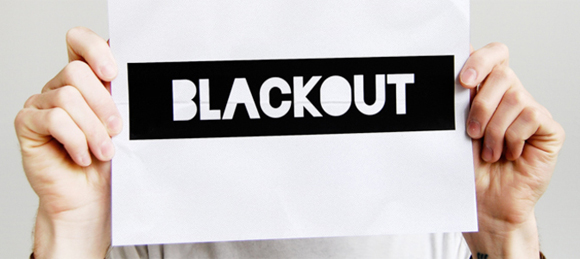
3. Simplifica
Simplifica is a slightly condensed sans-serif typeface featured by a uniform and thin line width.
4. Uni Sans
Uni Sans is a free all caps font which is available here.
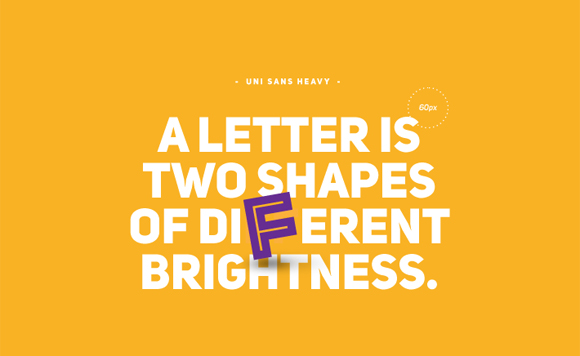
5. Borg
Borg is a geometric typeface with a curved incision which is inspired from Sweden furniture.
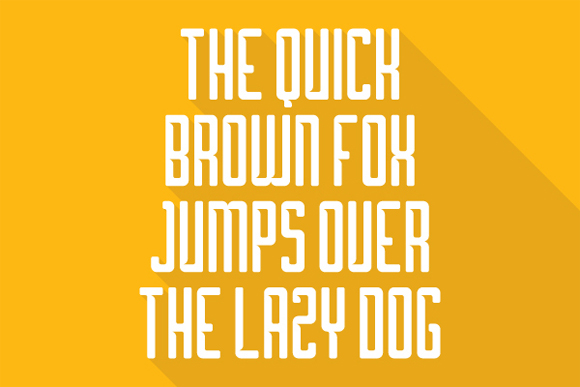
6. Moderne Sans
Moderne Sans is a clean sans-serif typeface popularised by pet portrait company Paint My Pooch. The font was created by Marius Kempken which is free to download.
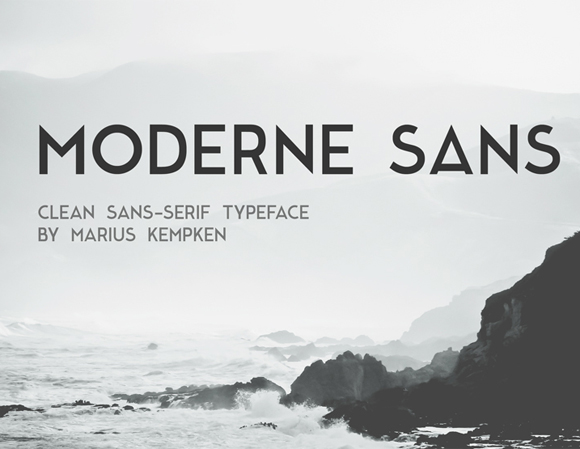
7. Ostrich Sans Inline
Ostrich Sans Inline is another all caps free to download font.
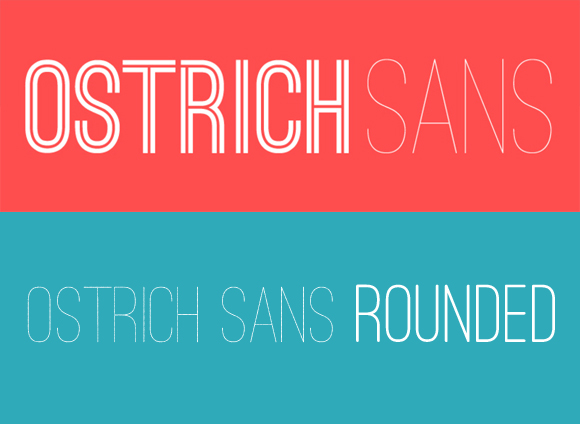
8. Reckoner
Inspired from the popular industrial sans serif typefaces such as Bebas Neue, Alegre Sans & Dharma Gothic, designer Alex designed this reckoner font which is a free all caps font for commercial and personal use.
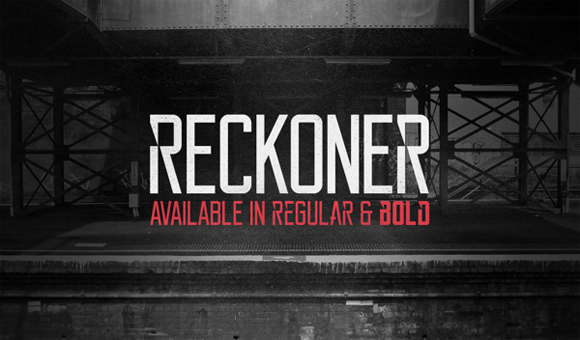
9. Furore
This all caps font is available here which is free to download.
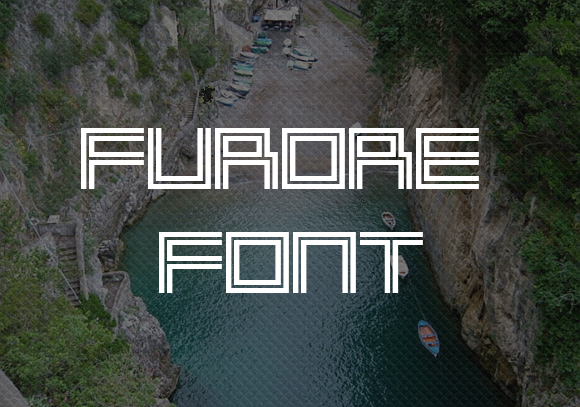
10. Primus
Primus is geometric typeface with rounded edges, carefully designed and kerned to achieve a high visual quality that would make it a perfect typeface for any kind of use.
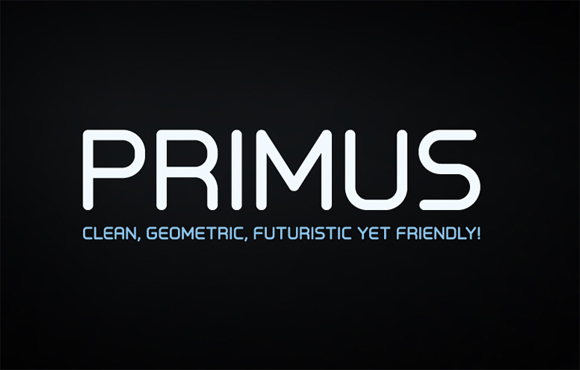
11. Rex
Rex all caps font is available here.
12. Porto
Porto is a gorgeous all caps font which is free to download.
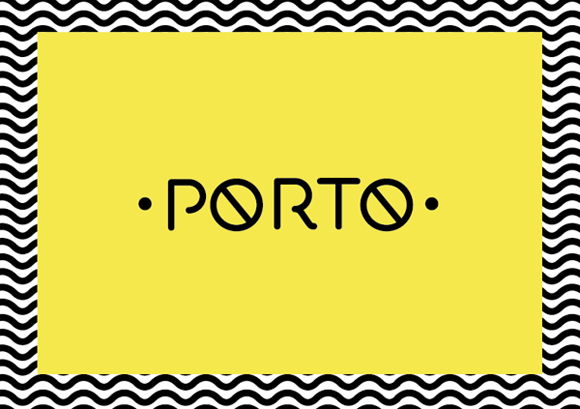
13. Clutchee
Clutchee all caps font is available here.
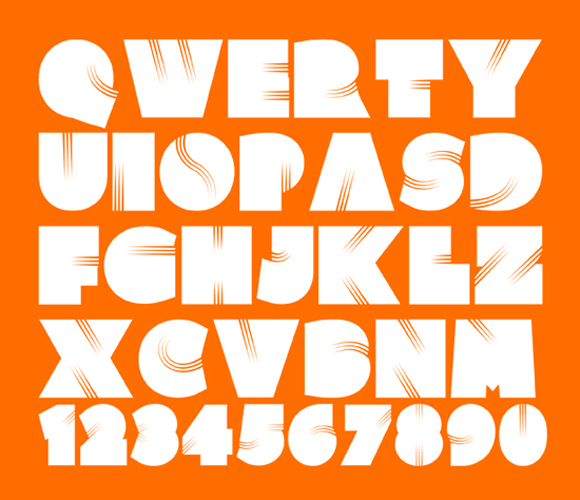
14. Tesla
The inspiration for Tesla typeface was found in the circuitry of lightbulb filament and wiring intricately crossing paths.
15. Portica
Portica is a simple sans serif Typeface designed by Michael Nunes.
Conclusion